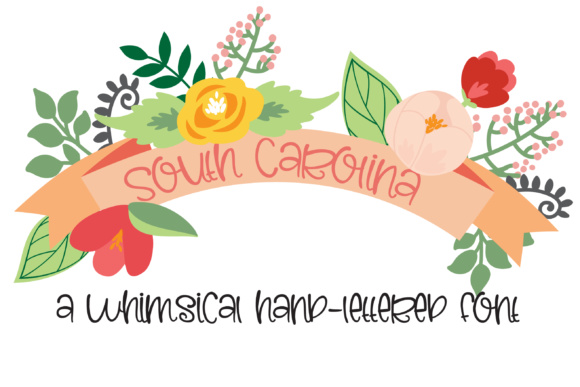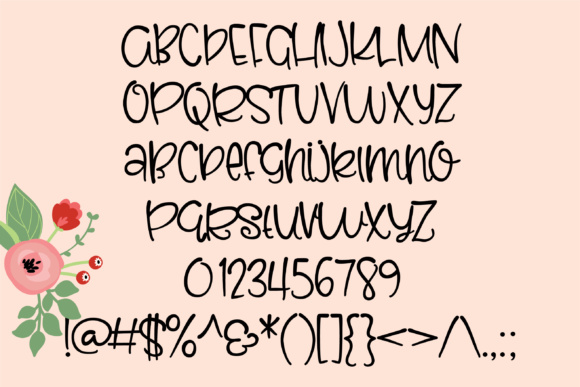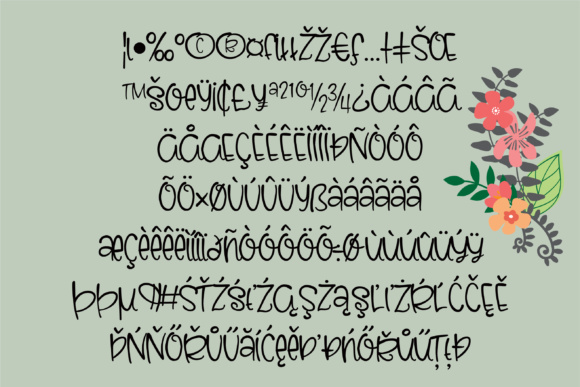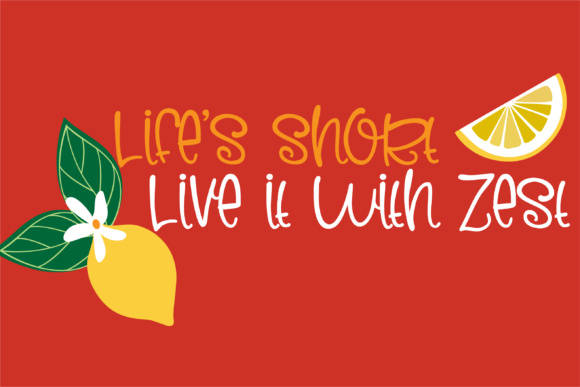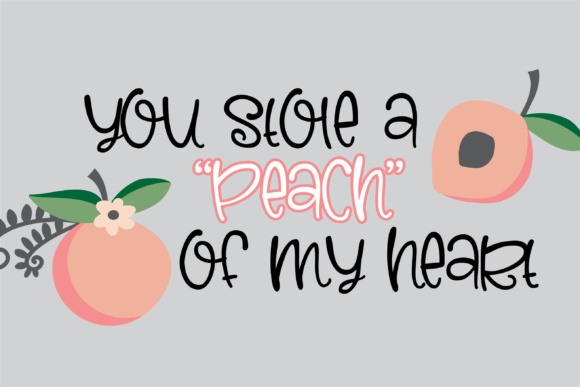
PN South Carolina Font
About PN South Carolina Font
This whimsical hand-lettered font has no descenders (lettering elements that fall below the baseline) making it a great font for fitting in banners or on curves.